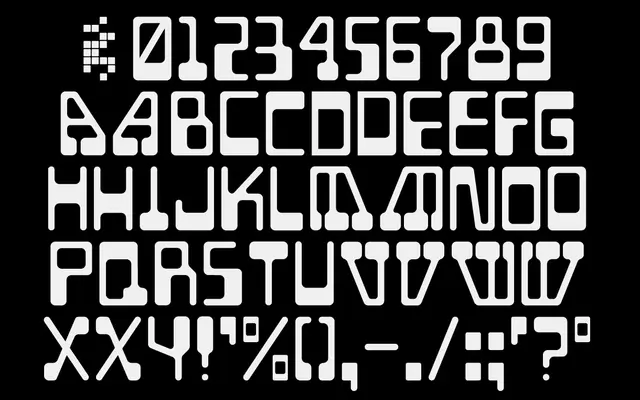
BD Geminis
Type Different · 2003
A single-weight display face modelled on the sci-fi and technology typography of the 1970s and 1980s, updated in 2024 with extended Latin coverage.
Originally released in 2003, BD Geminis interprets the geometric, angular letterforms associated with science fiction and consumer technology branding of the 1970s and 1980s. The 2024 update added full Latin Extended-A coverage and additional glyphs, broadening its usefulness across European languages. Available in one weight, it suits titling, packaging and themed projects where period-appropriate retrofuturism is the goal.
BD Geminis draws on 1970s and 1980s sci-fi and technology typography, giving it a strongly stylised, era-specific display character that resists classification as a functional text face.